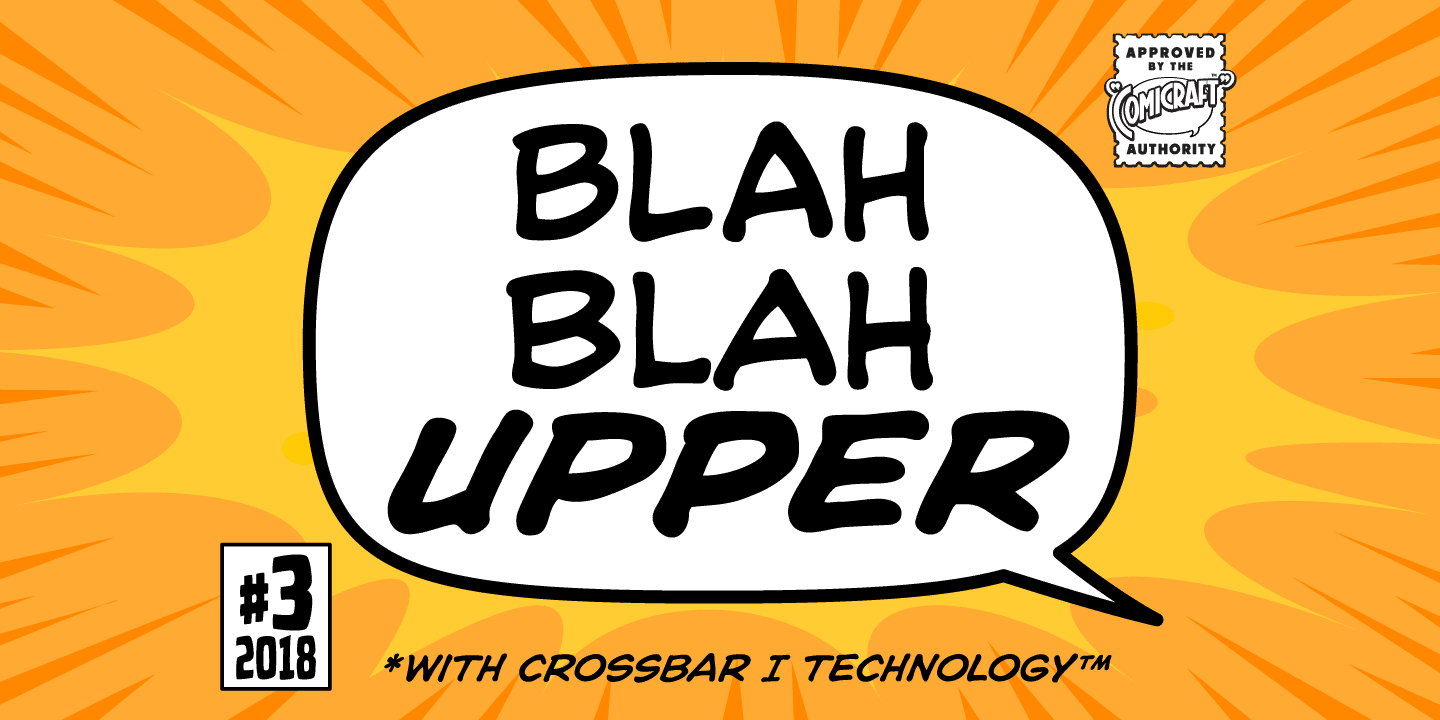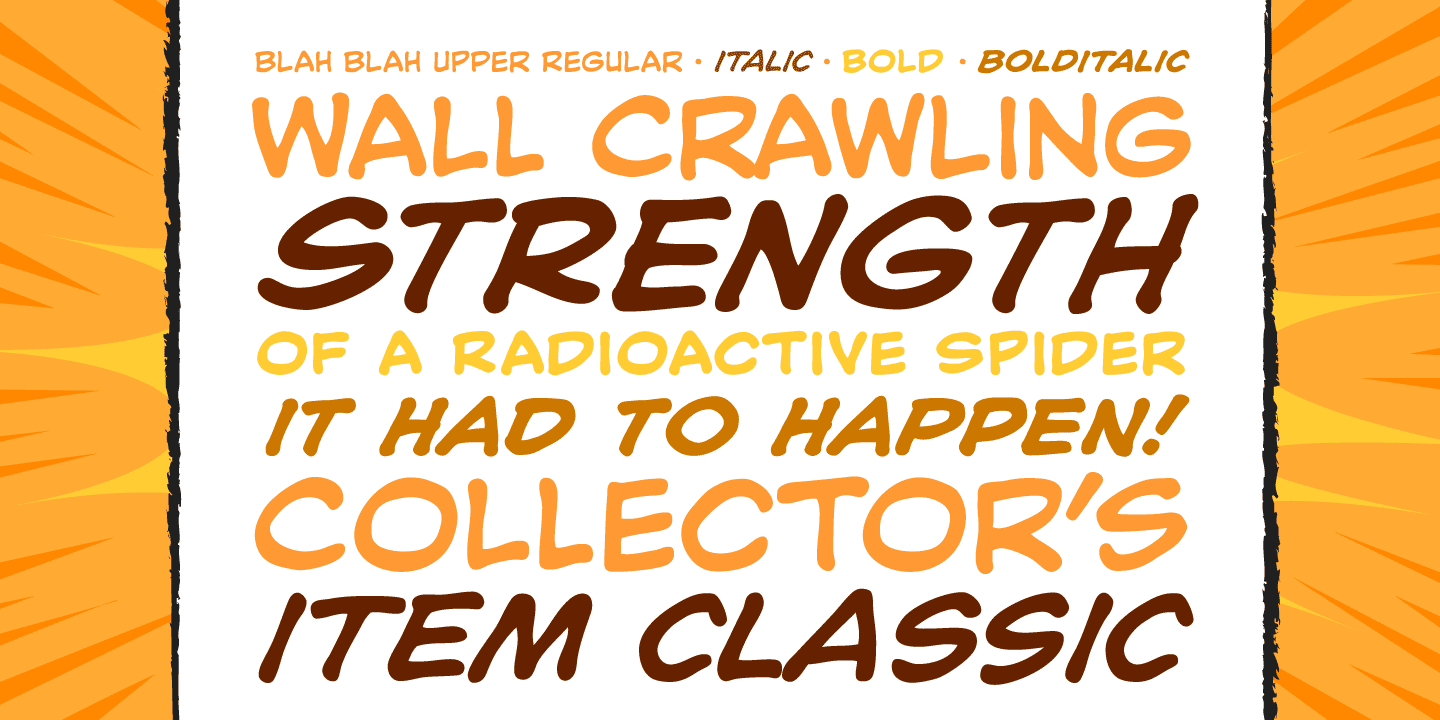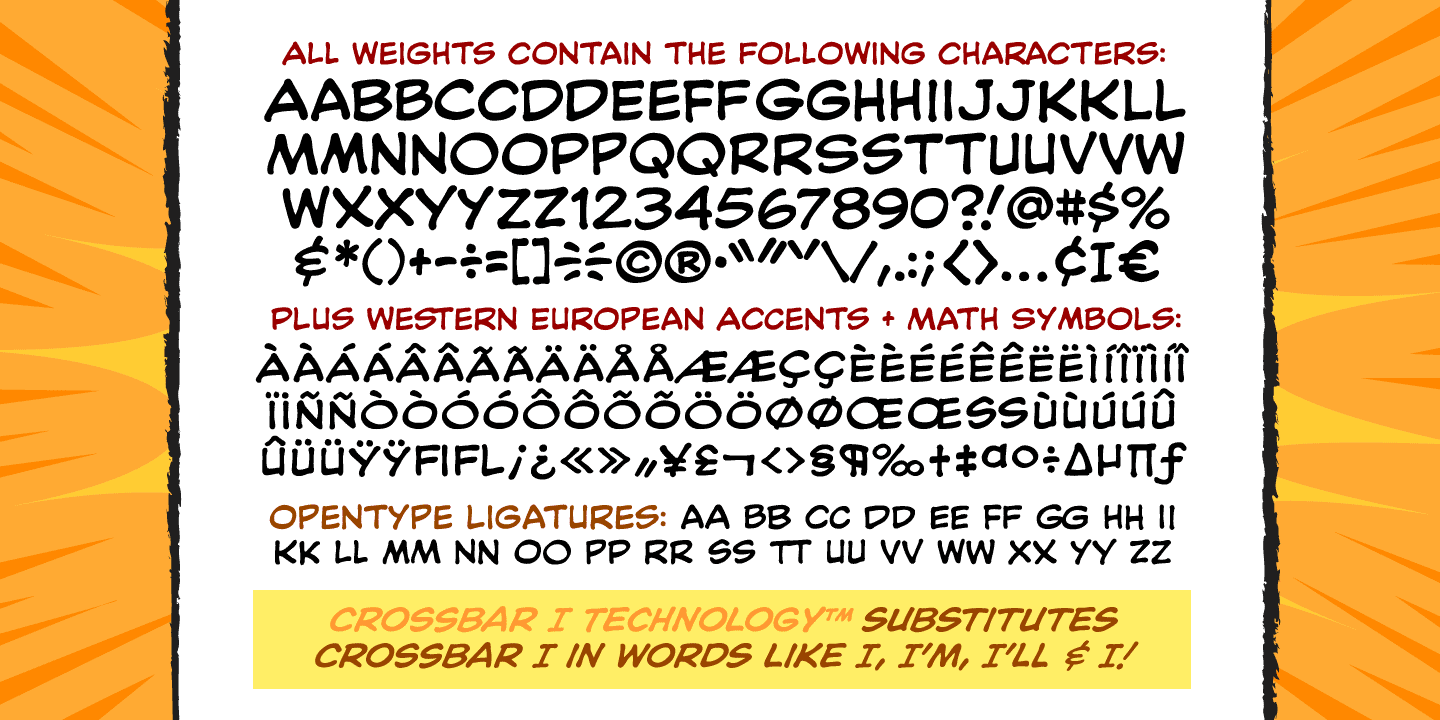
Blah Blah Upper
Font Family by Comicraft Fonts
Because You Demanded It! The Collectors Item Classic BLAH BLAH BLAH makes a triumphant return as an all-uppercase comic book lettering workhorse! Complete with auto-ligatures and our groundbreaking Crossbar I Technology, to put that sneaky & enigmatic character exactly where it belongs! Includes full sets of Western & Central European accents.